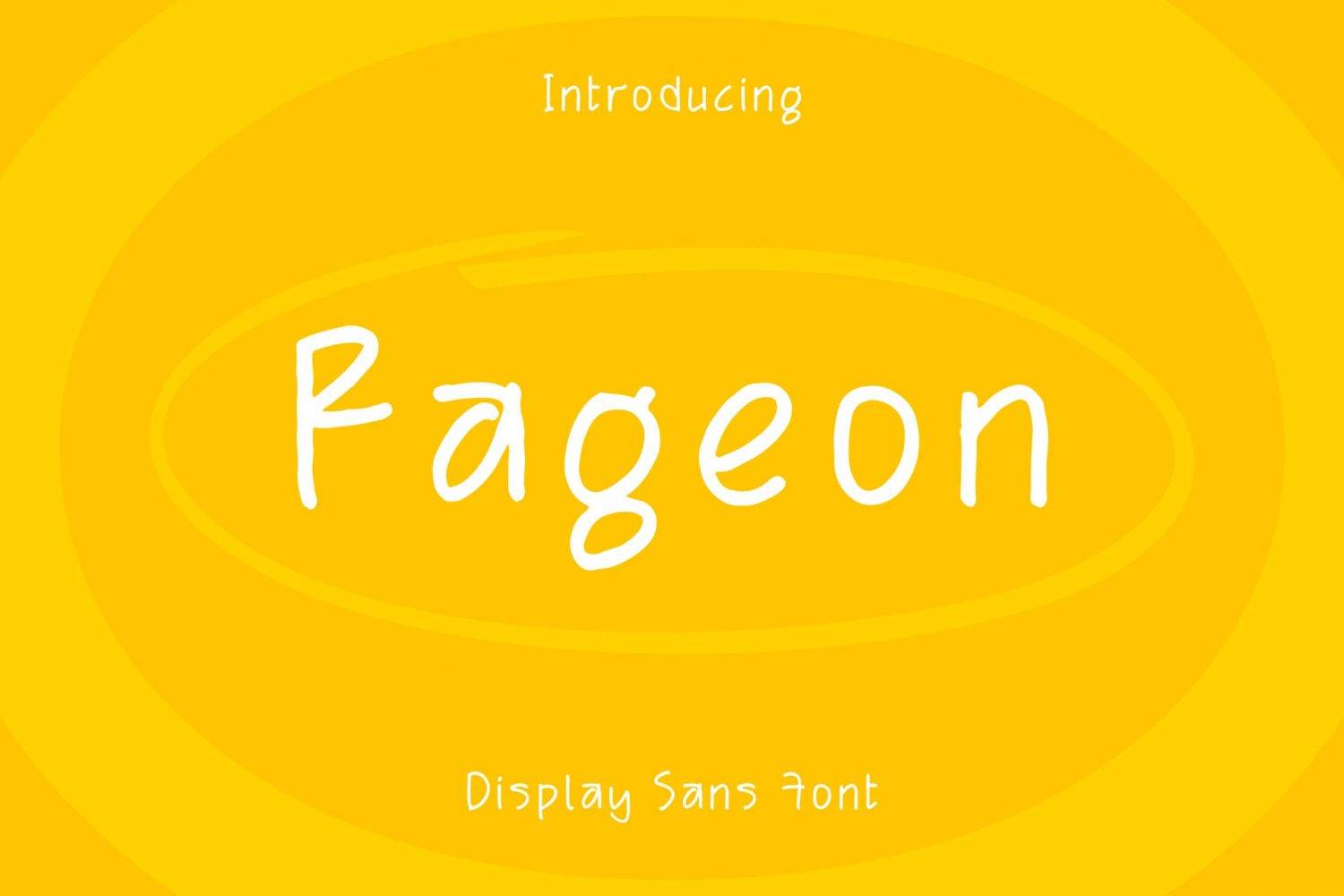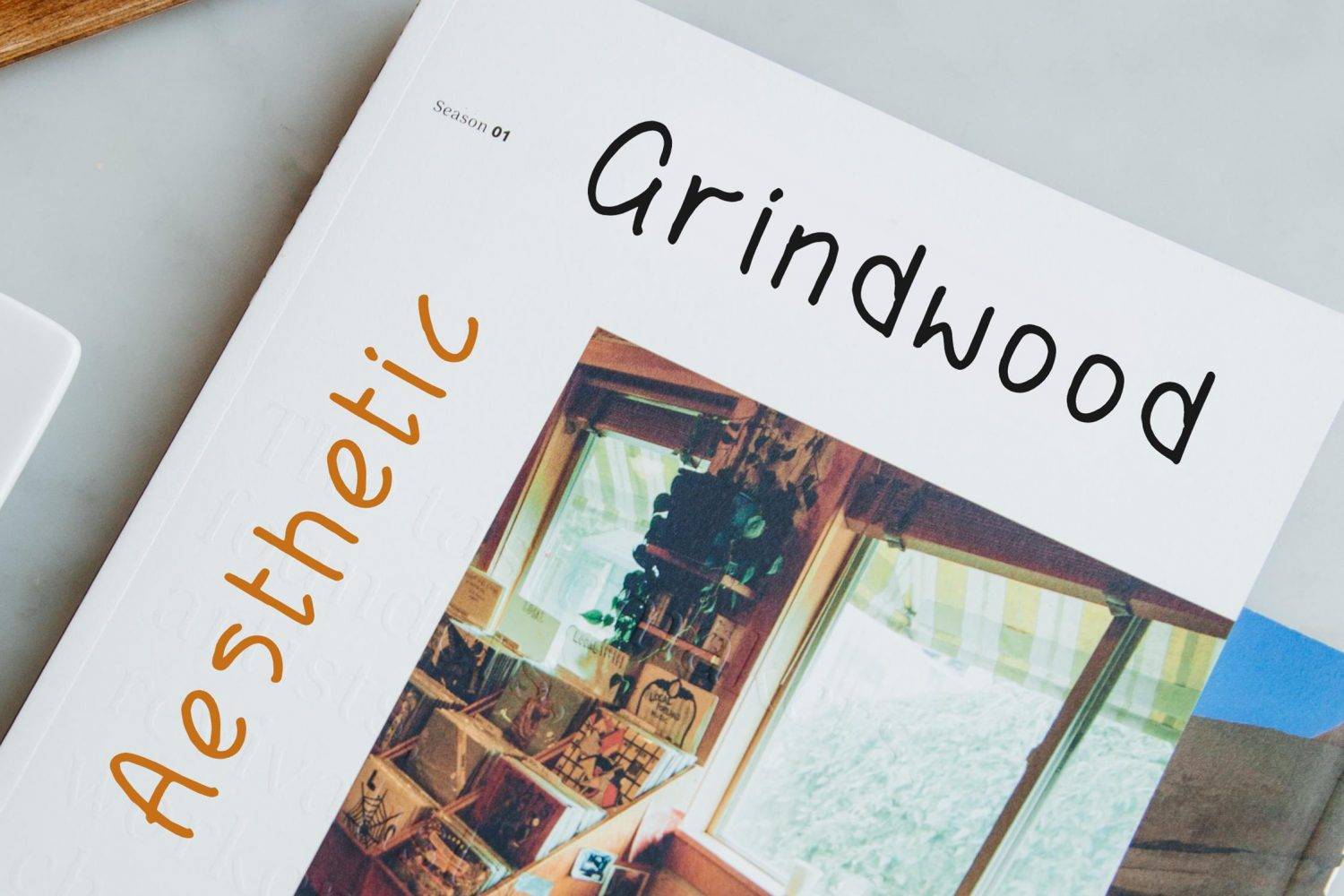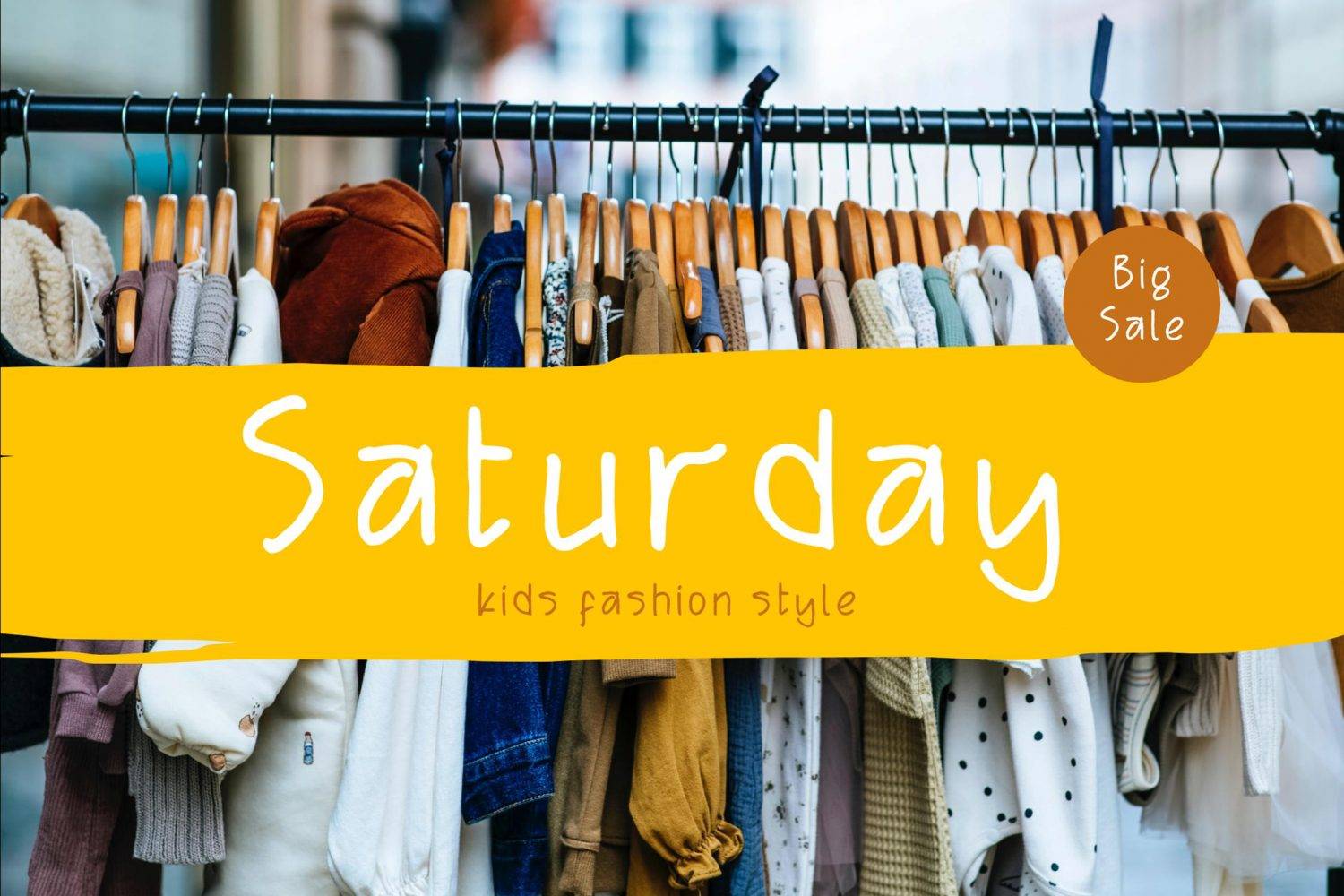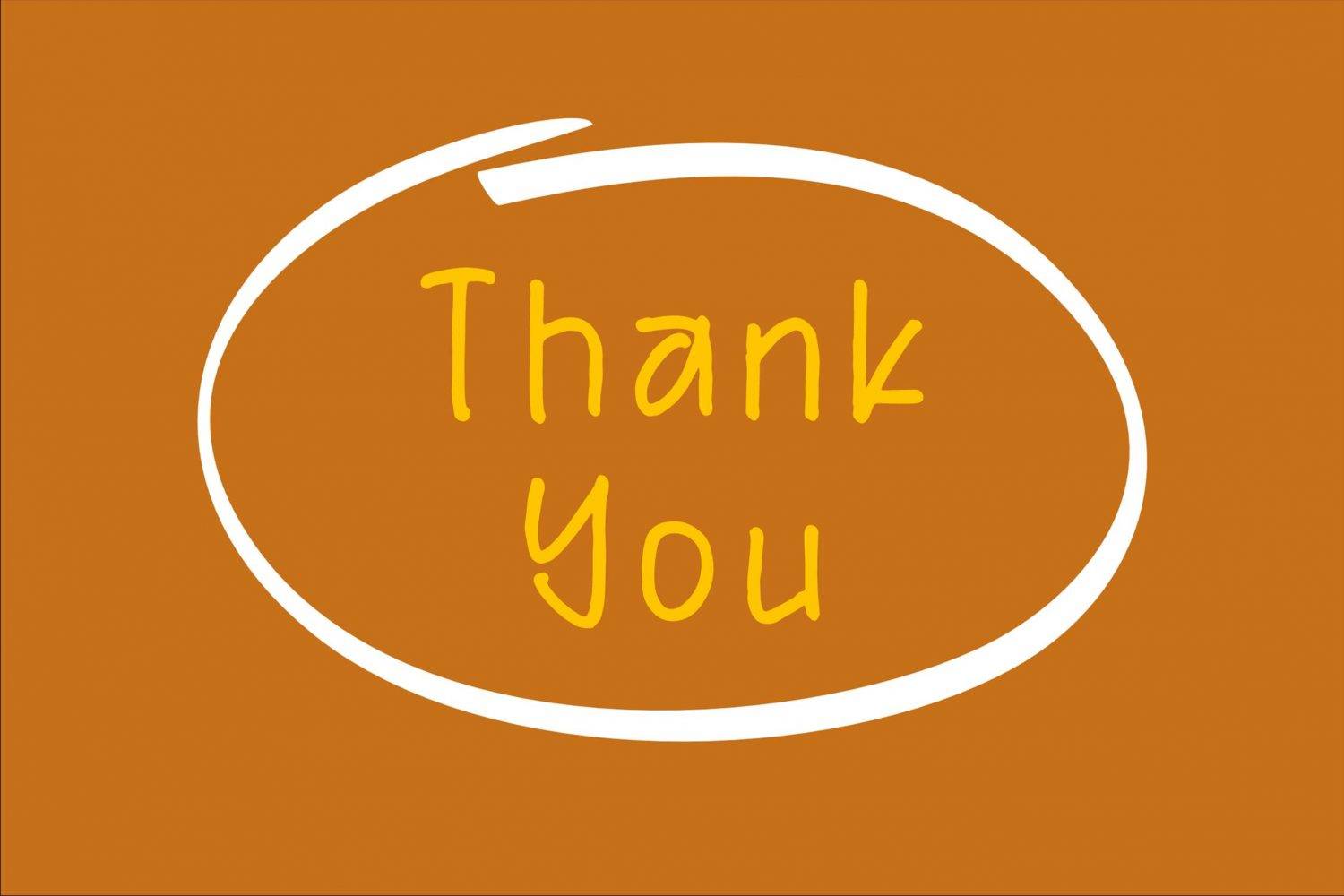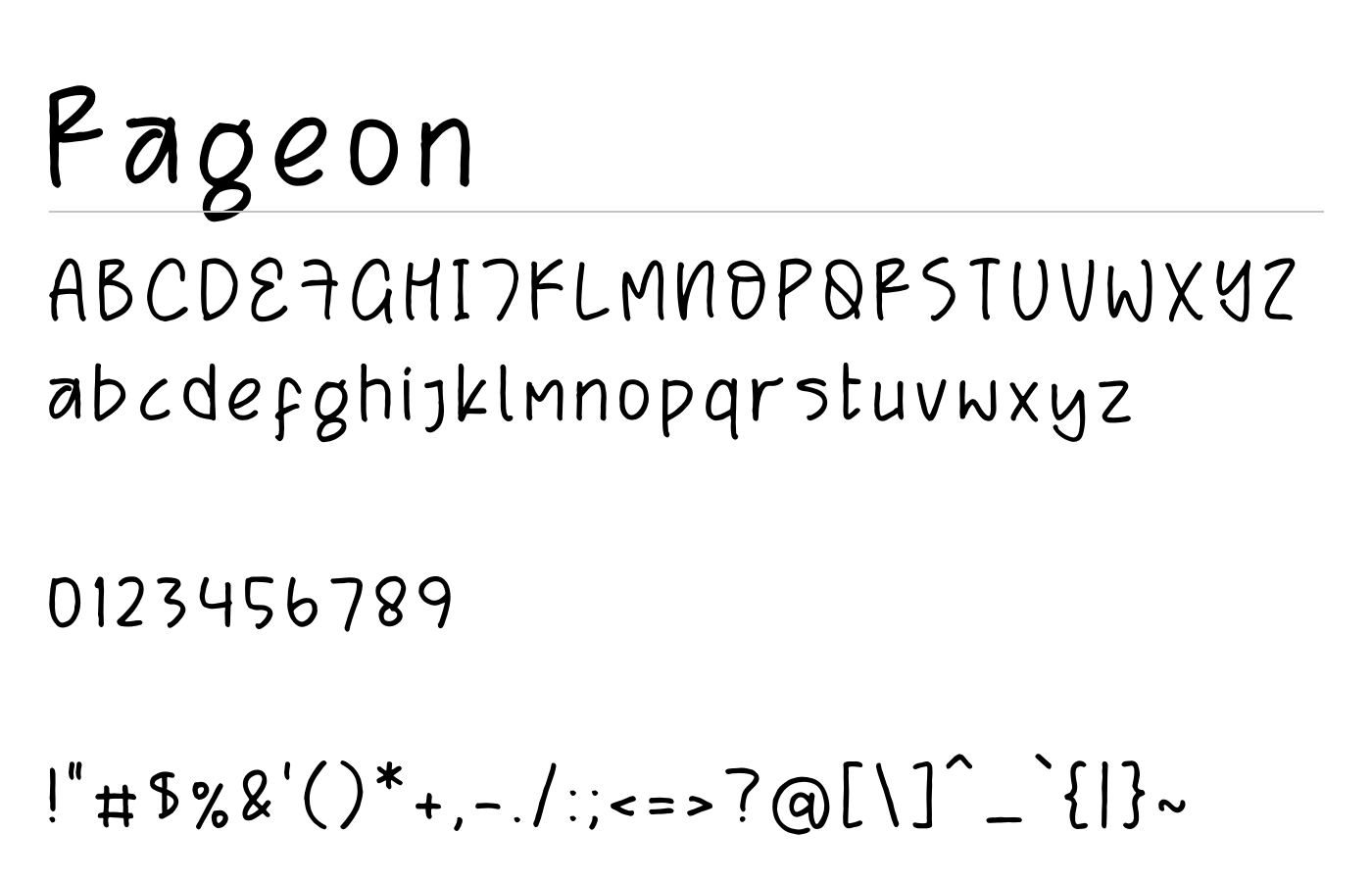
Rageon is a playful, handwritten sans serif font that features irregular, casual letterforms with a light weight and a relaxed, airy spacing. Its unique, slightly quirky characters and natural stroke variations give it a friendly and approachable personality, making it ideal for informal branding, children's content, or creative projects that seek a fun and personal touch. This font works best in headlines, invitations, or any design that benefits from a casual, hand-drawn feel.
Rageon Font
About Rageon Font